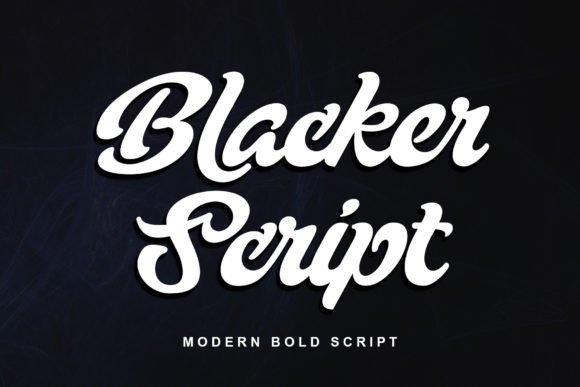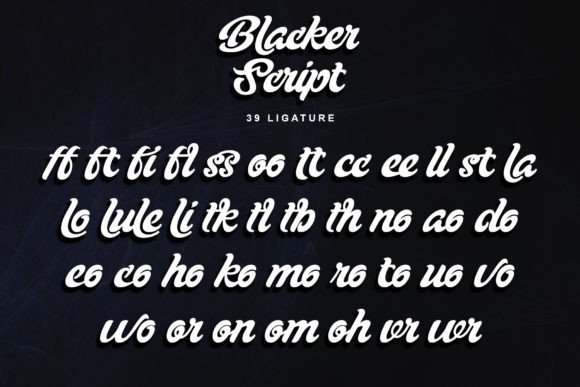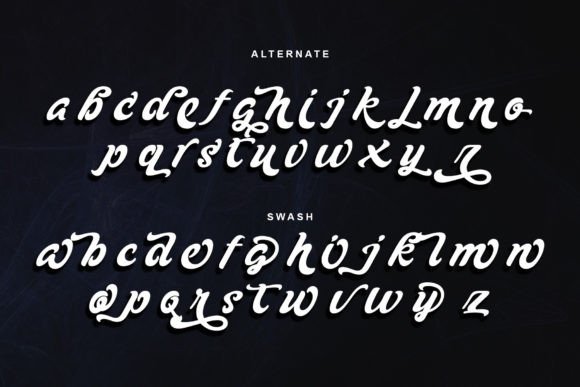
Blacker Script Handwritten Font – Modern and Bold Typeface
The Blacker Script Handwritten Font is a bold and modern script typeface that brings strength and style to any project. Carefully handcrafted, it blends casual charm with confident strokes, making it highly versatile. Whether used in busy backgrounds or as a clear headline, this font adds impact and elegance.
A Handwritten Script with Bold Charm
The Blacker Script Handwritten Font combines strong handwritten strokes with smooth flow, giving your designs a natural yet striking look. Its boldness ensures visibility in large designs, while its handcrafted details keep it approachable. Because of this, it is suitable for both professional and personal projects.
Perfect for Headlines and Posters
One of the best uses of the Blacker Script Handwritten Font is in posters, headlines, and social media graphics. Its bold and stylish strokes stand out even against busy backgrounds, making it a reliable choice for attention-grabbing designs. At the same time, it works beautifully in logos, invitations, and branding, where a modern handwritten style is needed.
The Blacker Script Handwritten Font adapts effortlessly to many applications. From product packaging and event signage to wedding stationery and branding, it adds a bold handwritten touch that feels both modern and stylish. Its versatility ensures it is suitable for digital as well as print designs.
Why Designers Love Blacker Script Font
Designers appreciate the Blacker Script HandwrittenFont because it combines boldness with approachability. It has the strength to stand out in headlines while remaining versatile enough for smaller text in personal projects. This dual nature makes it a valuable addition to any designer’s collection.
In summary, the Blacker Script HandwrittenFont is a bold, modern, and versatile typeface. With its handcrafted details, easy installation, and broad usability, it is perfect for posters, logos, invitations, and branding. Don’t miss the chance to download Blacker Script HandwrittenFont and bring a modern bold charm to your designs.